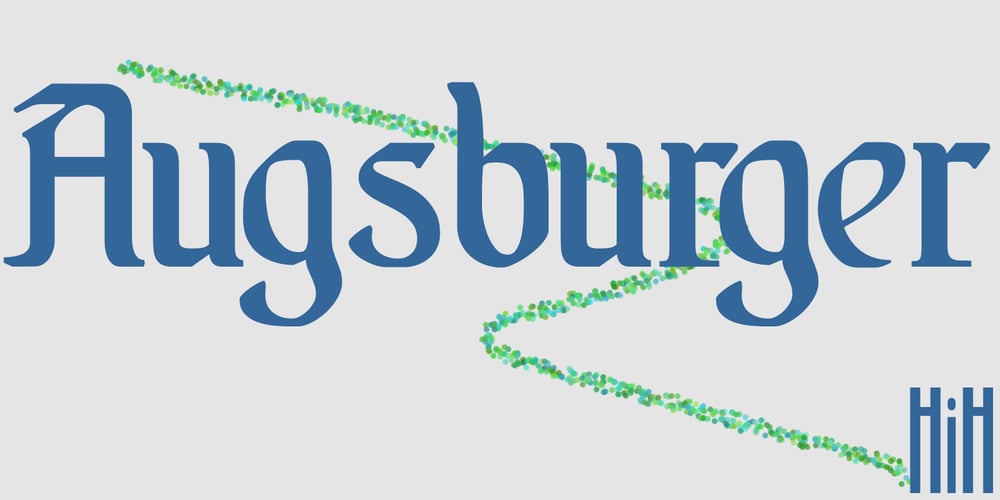
Augsburger Font Family was designed by published by HiH. Augsburger contains 3 styles and family package options. The Augsburger Family is a product of the Art Nouveau period in Germany and Austria, reflecting the darker, heavier Jugendstil approach typical of the Secession movement in these two countries. Originally released by H. Berthold AG of Berlin and Bauer & Co. of Stuttgart in 1902, Augsburger has been attributed to the designer Peter Schnorr. This current version represents a year-long revision of the Augsburger Family. All three fonts have been updated to eliminate duel encoding, harmonize metrics, and review all glyphs. In addition, the following features have been included in the individual fonts: Augsburger Schrift: a total of 249 glyphs have been added, for a total of 467 and an increase of 114%. New are Tabular Numbers, Small Caps, a variety of Ligatures and the refinement of all accents. Augsburger Initials: complete redesign of upper case, inclusion of upper case from Schrift instead of lower case, plus inclusion of small caps and a selection of appropriate ligature. Augsburger Ornamente: includes some additional glyphs. Augsburger may be purchased as a complete family or as individual fonts. Each font package includes both TTF and OTF versions to allow you to select what is most useful to you.